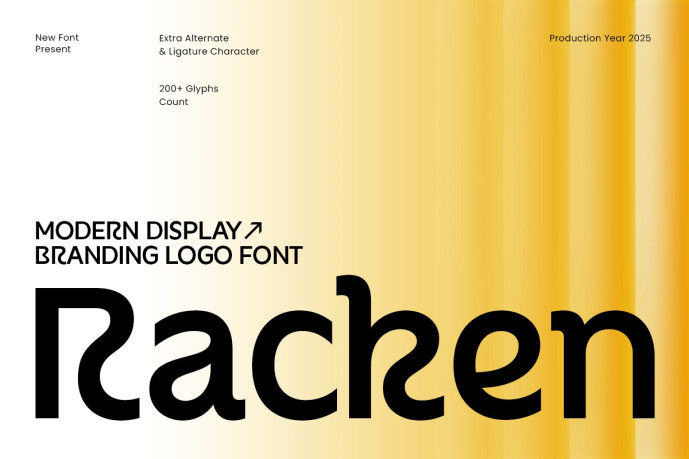
Racken Font
Racken Font is a modern, bold, and elegant display font designed for strong branding and an outstanding logo. With its clean shapes, sharp edges, and contemporary character style, Racken offers a confident visual identity, perfect for creative studios, startups, product branding, packaging, advertising, and digital media.
Its elegant construction and balanced proportions make Racken a versatile choice, suitable for both bold headlines and compact logos. Designed to deliver clarity, impact, and a modern look, Racken enhances any design requiring a memorable and professional display typeface.